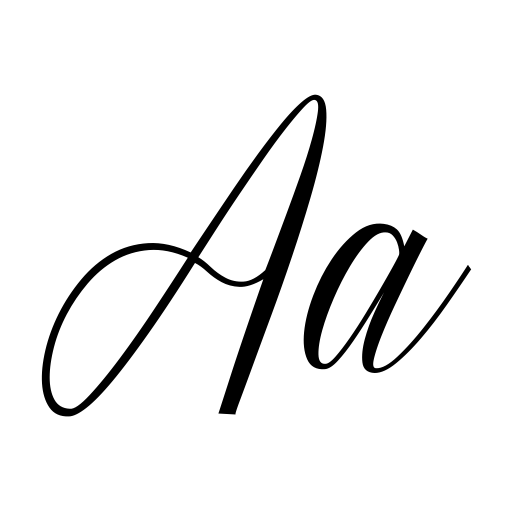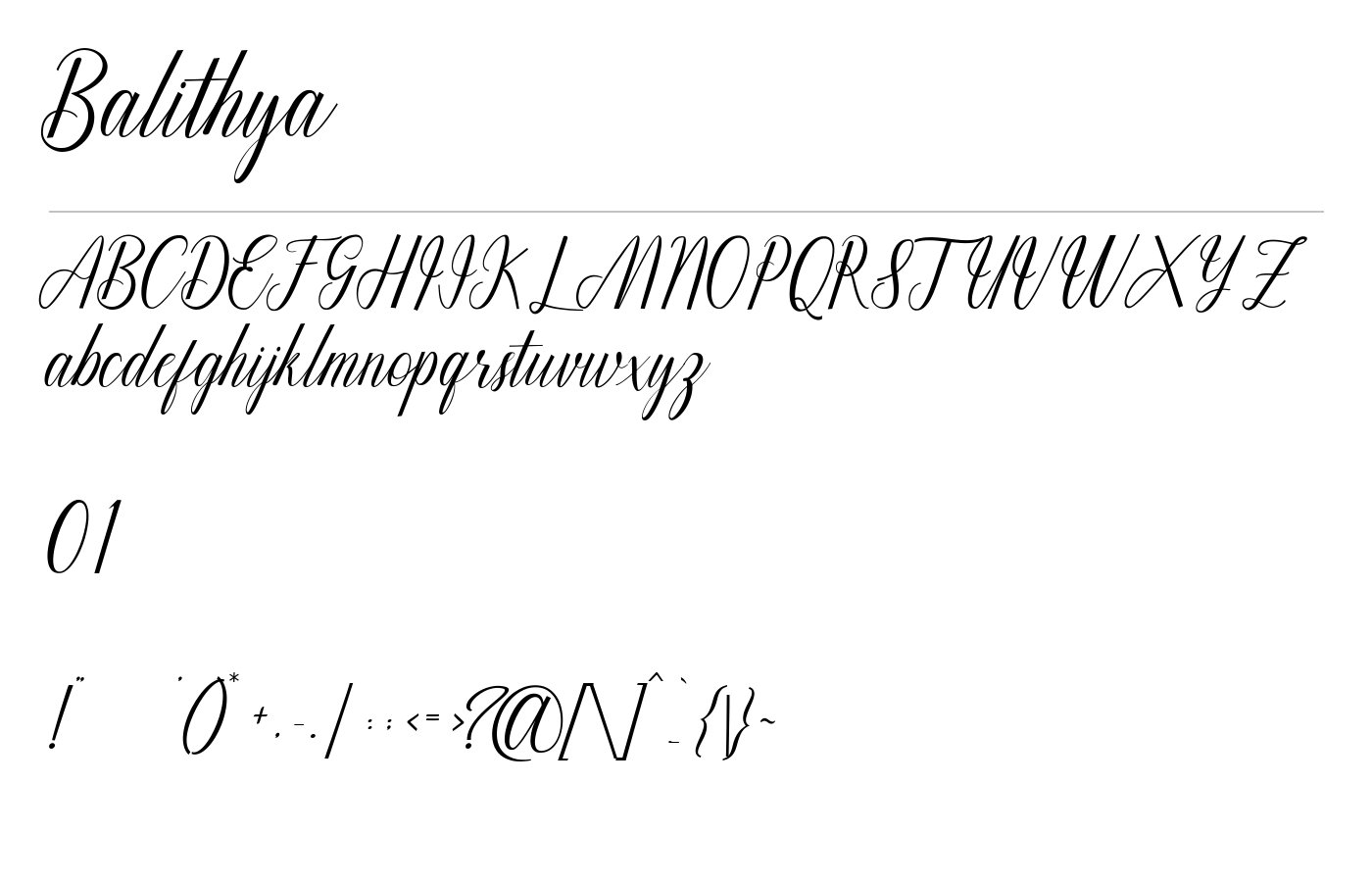
Balithya is an elegant script font characterized by its graceful, flowing letterforms and refined thin strokes, giving it a delicate and sophisticated appearance. Its slender, cursive style works beautifully for wedding invitations, luxury branding, and stylish headlines where a touch of class and femininity is desired. This font is ideal for designs that need a romantic, high-end feel while maintaining readability and charm.
Balithya Font